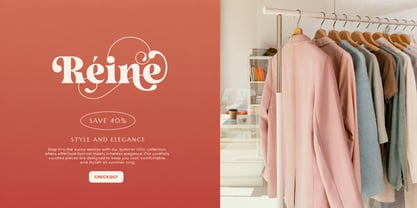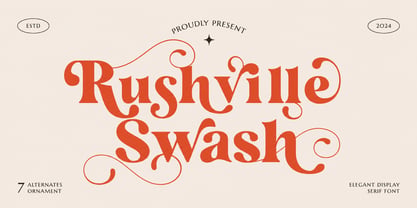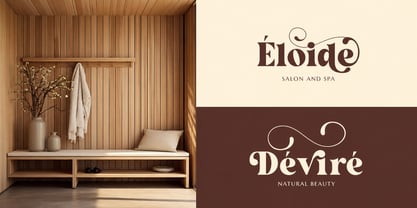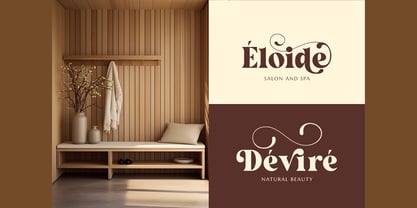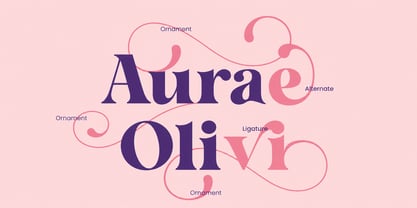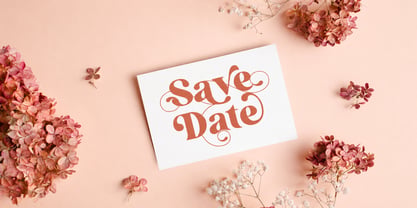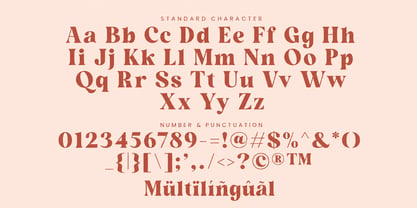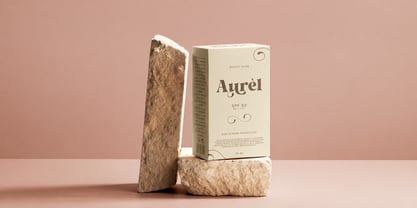
Rushville Swash
Rushville is a retro playful serif font with swashes and elegant tails, designed to bring nostalgic charm and creative personality to your designs. Inspired by the iconic visual styles of the 60s, 70s, and 80s, Rushville combines vintage character with modern clarity, making it a perfect choice for designers who want typography that feels both fun and timeless.
This serif font features expressive letterforms, stylish swashes, and beautiful tails that add movement and personality to every word. Its decorative yet readable structure allows it to stand out in display designs while remaining versatile enough for many creative applications.
Rushville is perfect for creating eye-catching typography across a wide variety of design projects. From magazine headlines and postcards to logos and DIY crafts, the font delivers a playful retro atmosphere that instantly enhances the visual appeal of your work.
The charming serif details and whimsical shapes make Rushville especially suitable for invitation cards, quotes, and creative branding. Whether you are designing wedding stationery, vintage-themed posters, or stylish logos, this font adds a distinctive retro flair that captures attention.
Rushville also works beautifully for fashion and merchandise design. Clothing branding, T-shirt graphics, packaging labels, and magazine headings become more expressive thanks to its lively serif forms and decorative swahses. To enhance your designs even further, Rushville includes a beautiful ornament collection. These decorative elements perfectly complement the font, allowing you to build elegant compositions for logos, invitations, posters, and packaging designs.
With its nostalgic personality and stylish details, Rushville helps designers create typography that feels playful, memorable, and visually engaging.